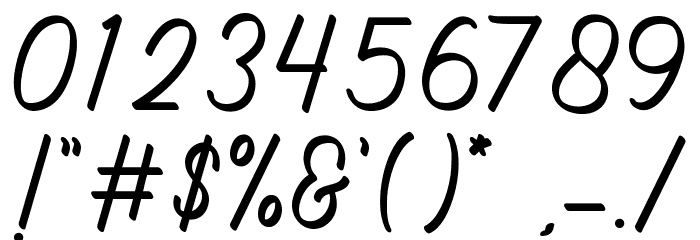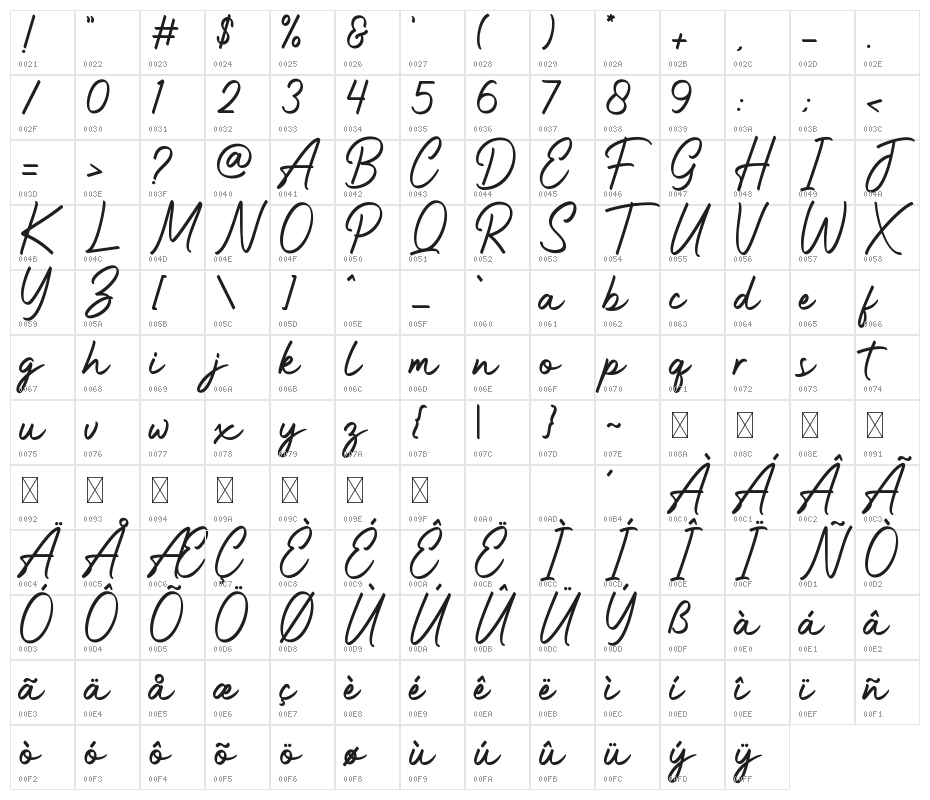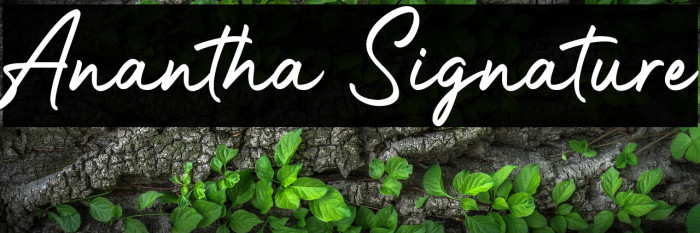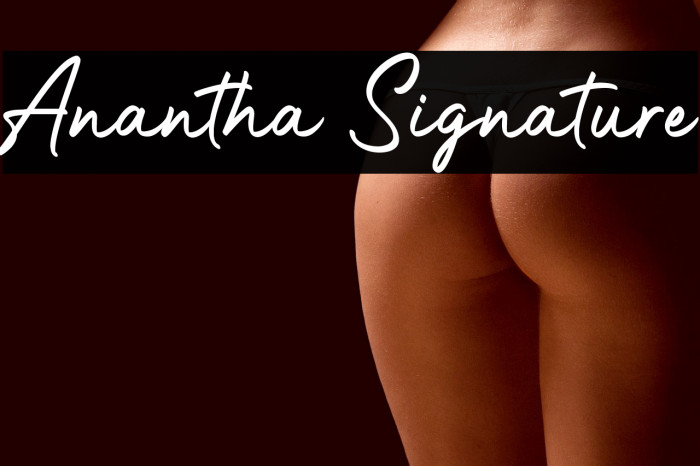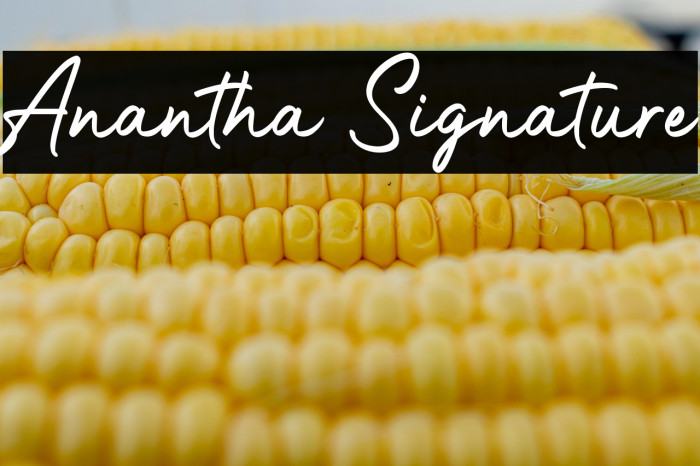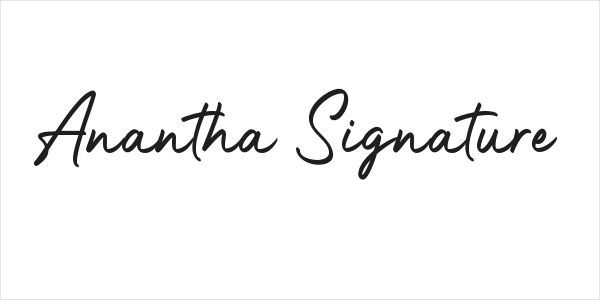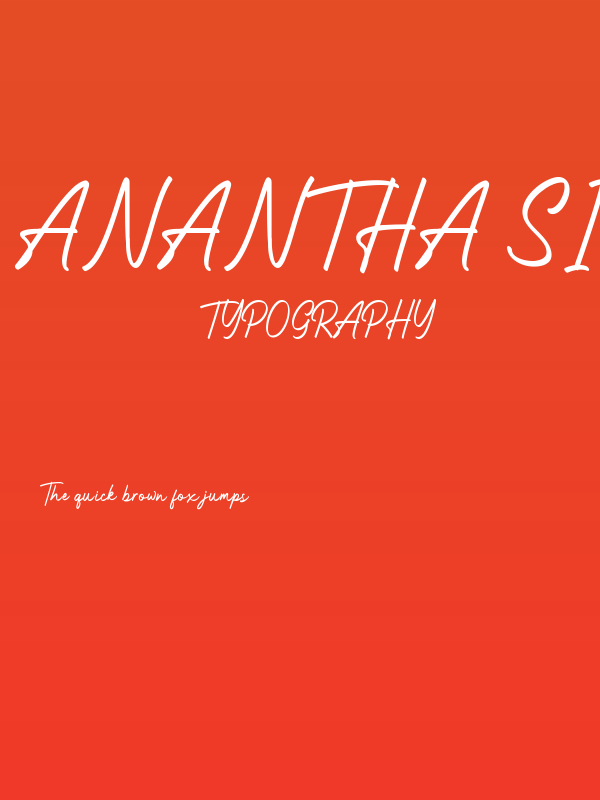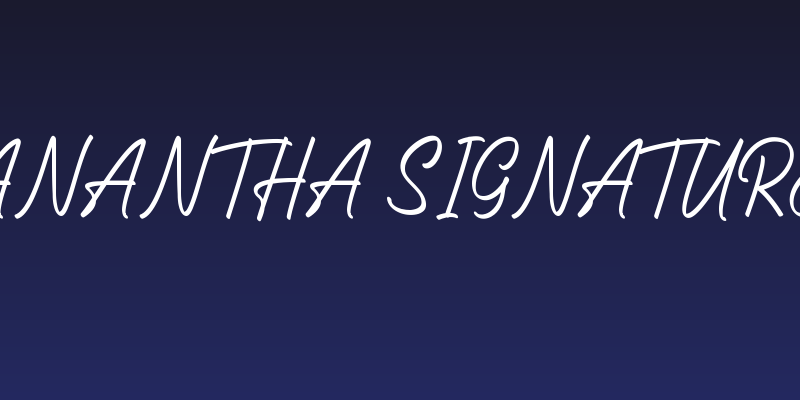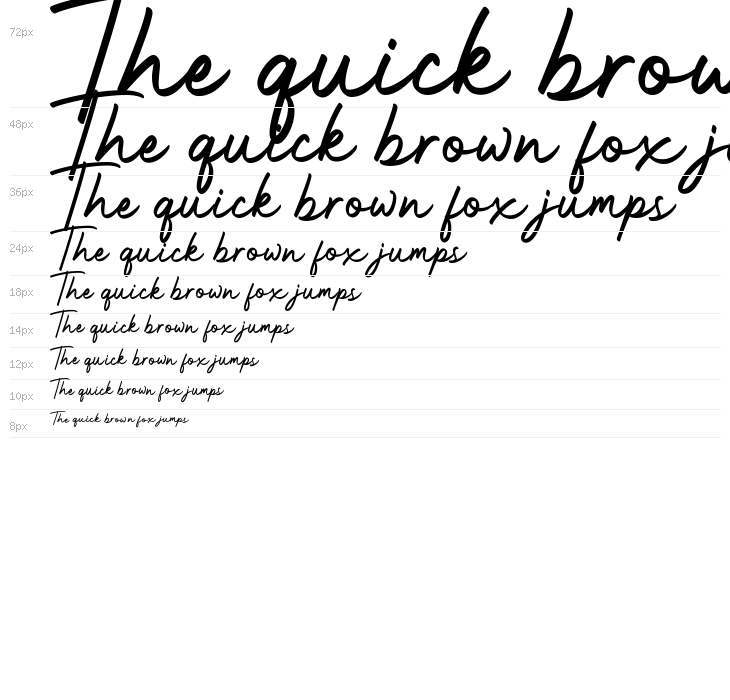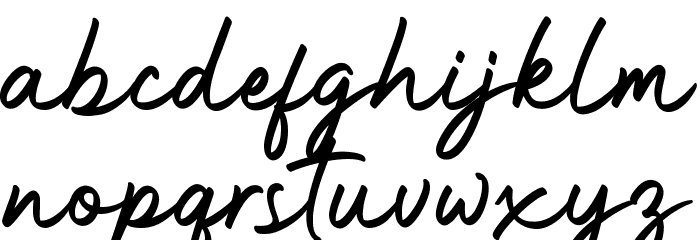
Anantha Signature Font
Anantha Signature Description
This font exudes a stylish and elegant handwritten aesthetic, characterized by its fluid and cursive letterforms. The uppercase letters are tall and slightly slanted, giving a sense of sophistication and grace. The lowercase letters maintain a consistent flow, with smooth connections between characters, enhancing the script-like appearance. The numerals are clear and legible, complementing the overall design. Special characters are well-integrated, maintaining the font's cohesive look. This font is perfect for projects that require a personal touch or a sense of elegance.
| Proposed Projects | Ideal for wedding invitations, personal branding, greeting cards, and elegant logos. |